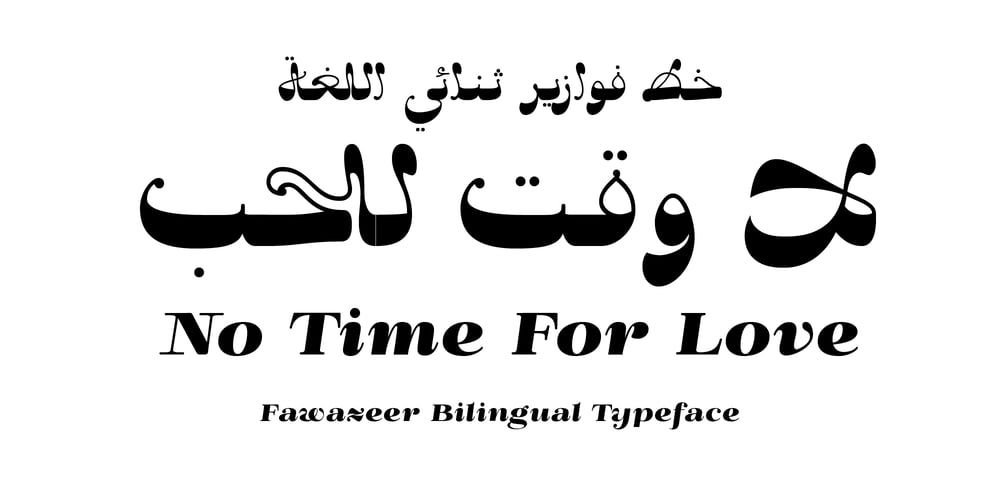
Fawazeernelly Font Family was designed by Kholoud Essawy and published by MAKYN. Fawazeernelly contains 1 styles and family package options. FawazeerNelly is a Bilingual Display Typeface, the Arabic font is based on Kufi Maghribi script with high contrast strike thicknesses. And the Latin font is an italic high contrast font that compliments the Arabic. They work best for titles and Poster Designs. It is an Authentic Design with a modern flavor.